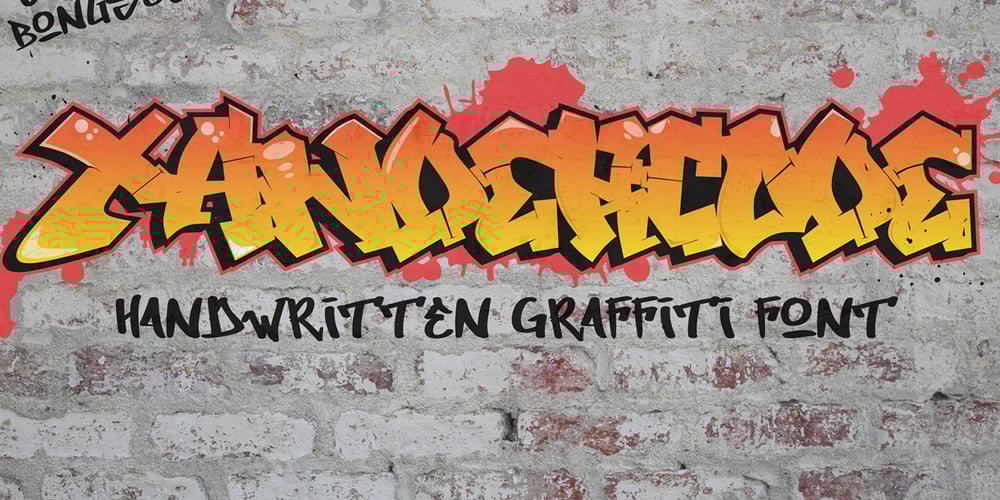
Xandercode Font Family was designed by Sipanji and published by Sipanji21. Xandercode contains 1 styles and family package options. Xandercode is a bold and chunky lettered display font. Add this font to your creative ideas and notice how it will make them stand out! with spalsh vector bonus inside.